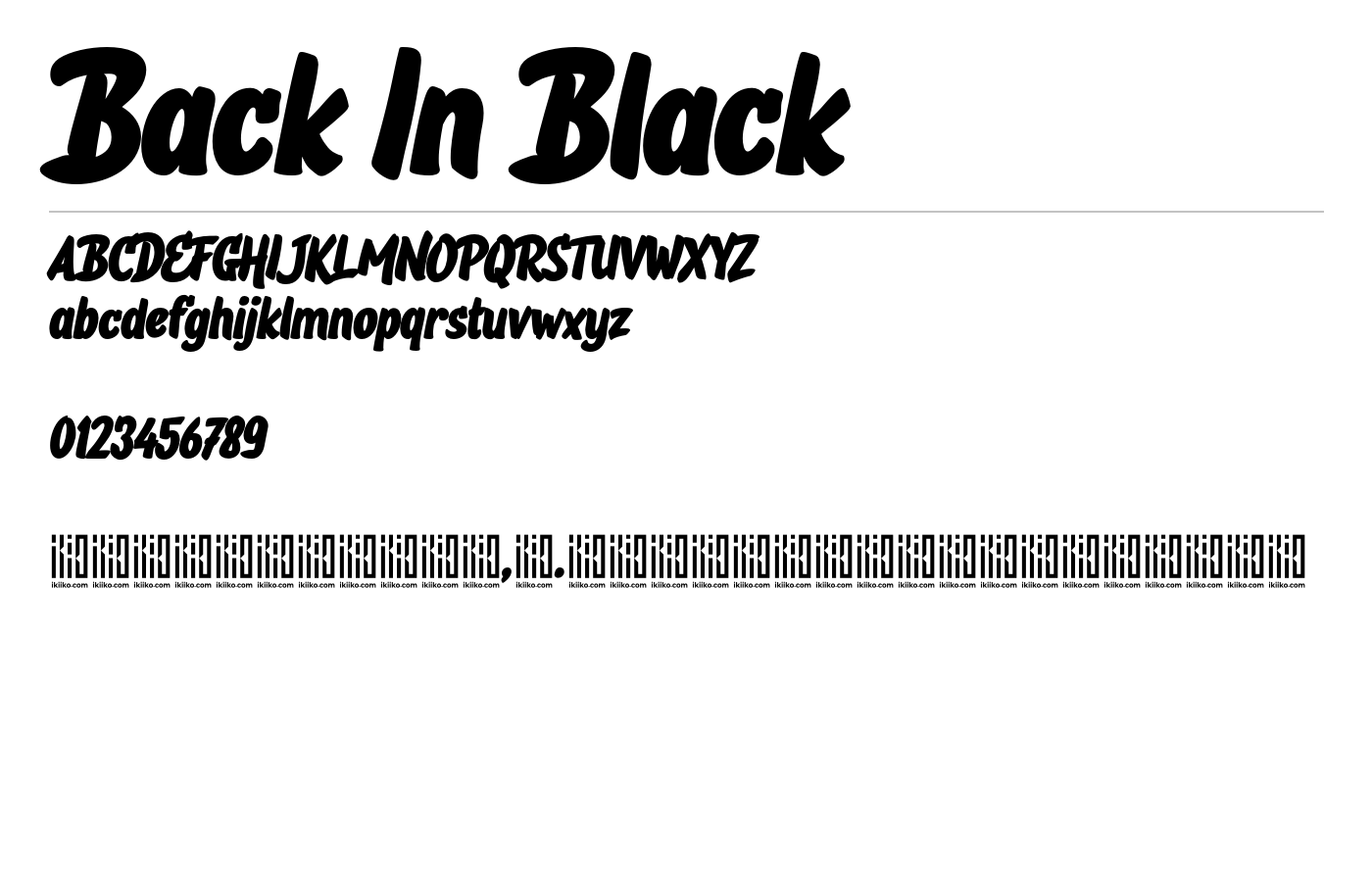
Back In Black is a bold, playful script-style font with a strong presence and smooth, rounded strokes that give it an energetic and approachable feel. Its casual, hand-drawn look works well for branding, headlines, and packaging where a lively and friendly vibe is desired. This font is ideal for projects that need to stand out with personality while maintaining readability.
Back In Black Font
About Back In Black Font
| Designer | Wahyu Eka Prasetya, Andhika Pradana |